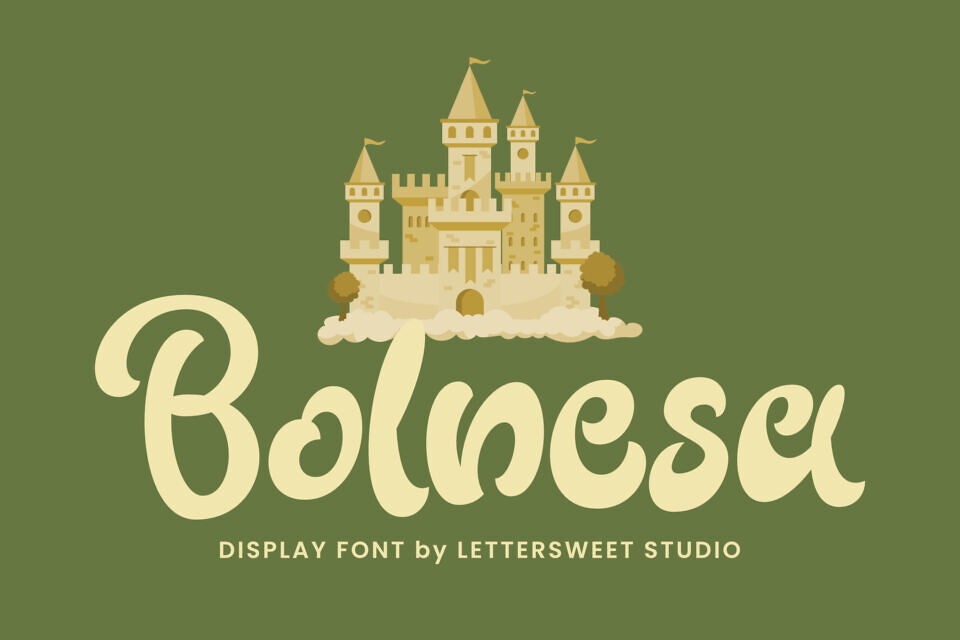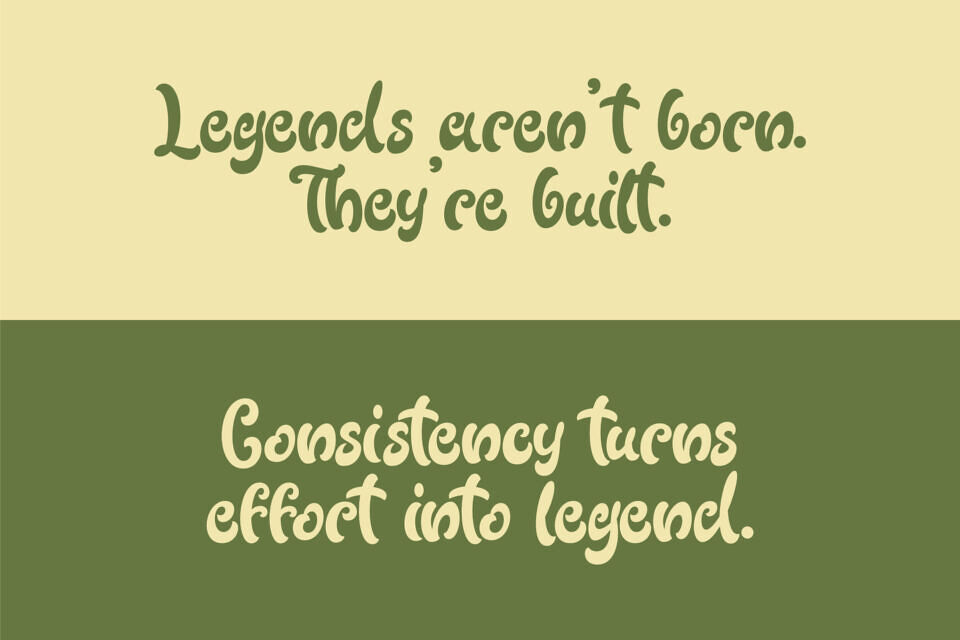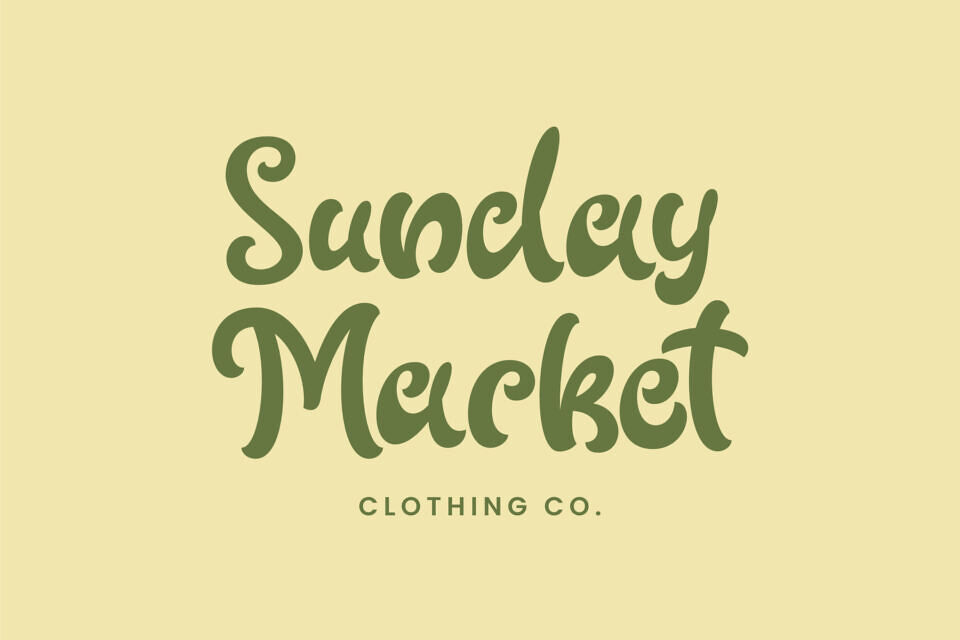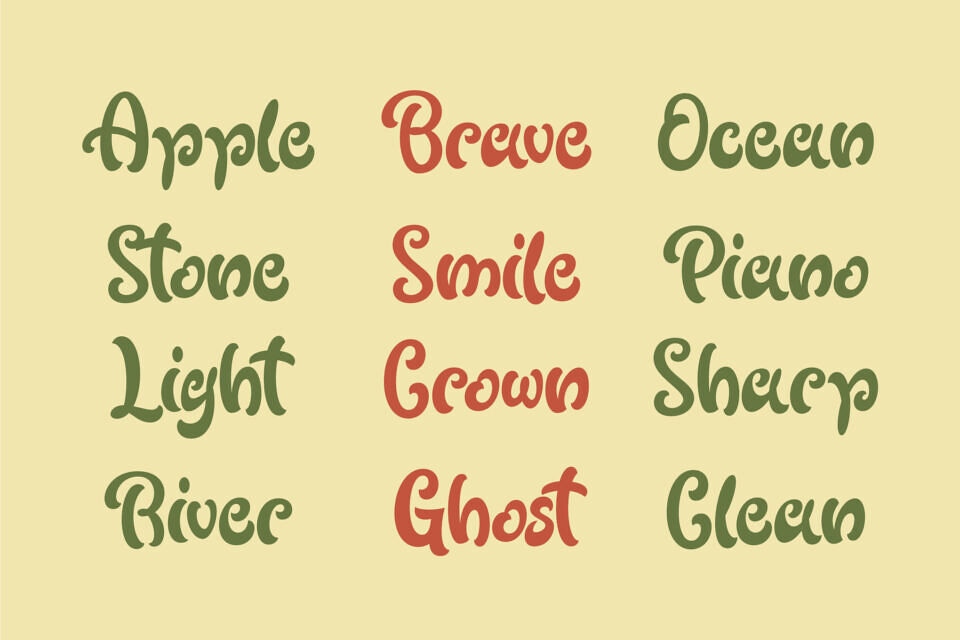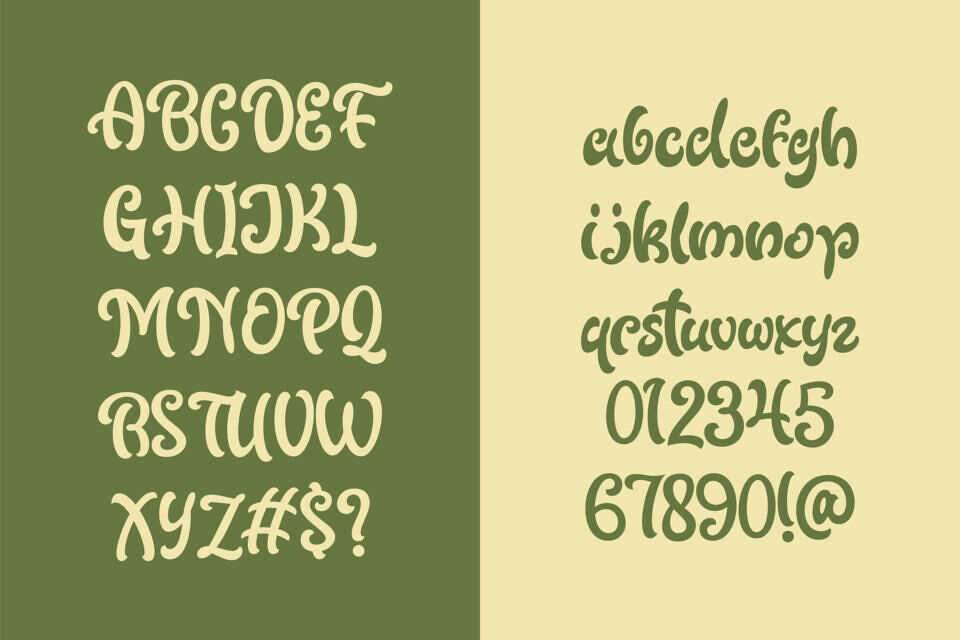
Bolnesa is a bold, playful display font with smooth, rounded shapes and a sweet storybook charm. It brings a fairytale, kids-friendly, and whimsical feel to any design—perfect for creating cheerful visuals that instantly catch the eye.
Designed to be both cute and highly readable, Bolnesa works beautifully for large headlines, logo wordmarks, and fun packaging. Its soft, chunky letterforms add warmth and personality, making it ideal for brands and projects that want to feel friendly, magical, and joyful.